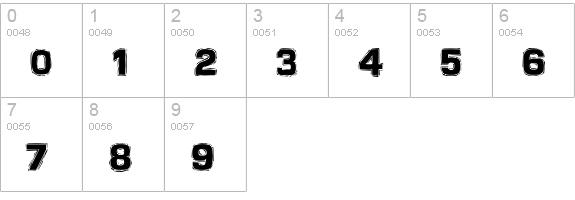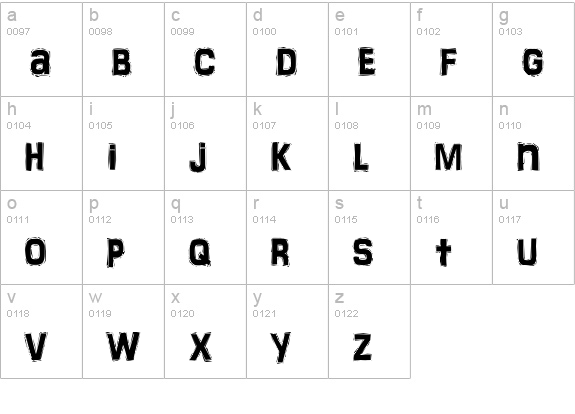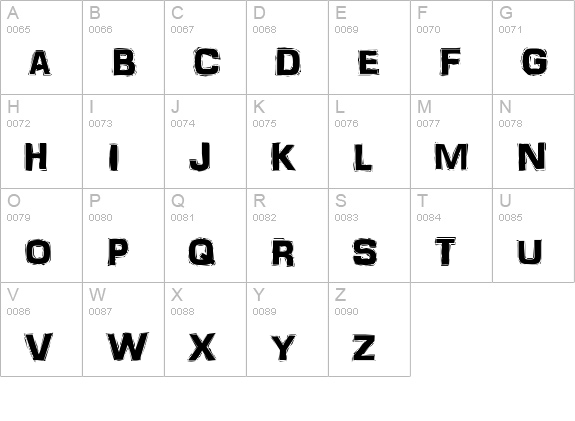
FrankenTOHO Font Details
FrankenTOHO font is a unique and eye-catching typeface that combines elements of horror and science fiction. With its bold, angular shapes and jagged edges, this font is perfect for adding a touch of mystery and intrigue to your designs. Whether you're working on a poster, book cover, or logo, FrankenTOHO will make a statement and grab the viewer's attention. This font is not only visually striking but also versatile, as it can be used for both display and body text. Its legibility and readability ensure that your message comes across loud and clear, no matter the size or format. Best of all, FrankenTOHO is completely free to download at FontsMarket.com. So why wait? Give your projects a spooky and futuristic edge with this one-of-a-kind font today!